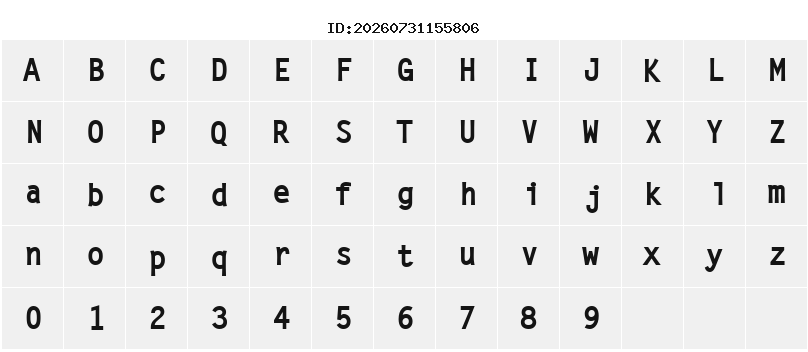
LetterGotLBol Preview
• Font Name: LetterGotLBol
About LetterGotLBol.ttf
LetterGotLBol.ttf is a modern, elegant sans-serif font designed for ultimate readability and visual harmony. Perfect for branding, headlines, web design, and print materials.